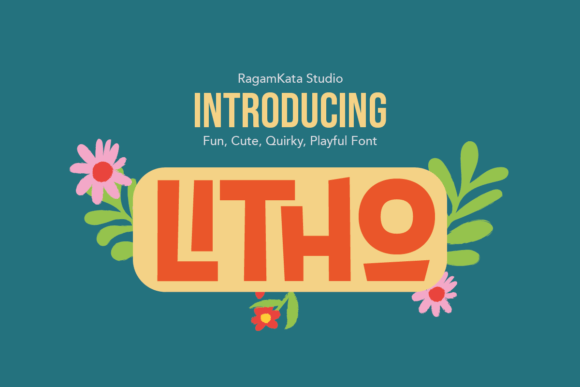
Introducing Litho Font, the perfect display font for all your movie script needs. Created by the talented RagamKata Studio, this font is not just your ordinary typeface – it's a cute and charming addition to any design project.
With its whimsical and quirky nature, Litho Font brings a touch of playfulness to your creations. Imagine your movie poster, book cover, or promotional materials adorned with this unique and eye-catching font. It's guaranteed to capture attention and leave a lasting impression on your audience.
But Litho Font is not just about aesthetics; it's also about functionality. This font has been meticulously crafted to ensure optimum legibility, even at smaller sizes. Your text will always be clear and easy to read, making it perfect for subtitles, captions, or any other textual elements in your movie scripts.
One of the greatest advantages of Litho Font is its versatility. It seamlessly blends with various design styles, allowing you to experiment and create truly remarkable visuals. Whether you're going for a vintage, modern, or futuristic look, this font adapts effortlessly to your vision.
But don't just take our word for it – try Litho Font for yourself and witness the magic it brings to your projects. As you confidently incorporate it into your designs, you'll be amazed at the results. Your movie scripts will come alive with a touch of whimsy, making them even more captivating and engaging for your audience.
With Litho Font, your designs will shine brighter, your messages will resonate deeper, and your projects will take on a whole new level of creativity. Don't miss out on this opportunity to elevate your work and captivate your audience with a font that is both captivating and informative.